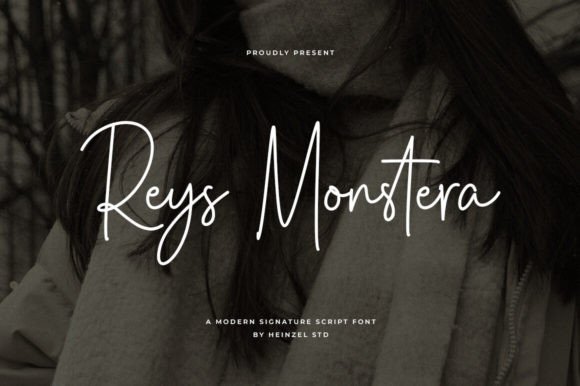
Reys Monstera: Elevating Modern Design with Script Elegance
In the crowded landscape of digital assets, finding a typeface that balances personality with professionalism is a rare discovery. Reys Monstera is a modern signature script font that immediately captures attention with its fluid, elegant touch, offering a solution for designers seeking to inject warmth and authenticity into their visual projects. It stands out as a versatile tool for anyone looking to move beyond rigid geometric fonts and connect with their audience on a more human level.
The Role of Handwritten Aesthetics in Branding
Typography is the voice of a brand, and choosing the right font is critical for establishing a distinct identity. In an era where consumers crave genuine connection, Reys Monstera offers a bridge between luxury and approachability. Its flowing lines mimic the natural imperfections of hand-lettering, which can significantly enhance brand perception. When applied to a logo or brand collateral, it signals creativity and attention to detail without sacrificing legibility.
Unlike rigid serif or sans-serif typefaces, this script font adds an organic layer to visual design. It works exceptionally well for brands that want to appear curated and thoughtful. Whether you are designing for a boutique agency, a lifestyle brand, or a high-end service provider, the font helps establish a visual hierarchy that draws the eye to key messages.
Practical Applications for Creative Professionals
The true value of a creative asset lies in its versatility. Reys Monstera is not limited to a single medium; it adapts seamlessly across various formats, making it a staple in any designer's toolkit. Its elegant aesthetic makes it particularly effective for projects requiring a personal touch.
- Stationery and Print Design: It looks stunning on wedding invitations, thank you cards, and greeting cards, adding a bespoke feel to special occasions.
- Digital Marketing: For social media graphics and digital ads, the font helps create thumb-stopping content. It adds personality to Instagram quotes, headers, and promotional banners.
- Corporate Identity: Use it for business cards, letterheads, and presentation covers to soften corporate communication while maintaining a professional edge.
- Editorial and Packaging: In magazine layouts or product packaging, the script can highlight headlines or callouts, guiding the reader through the content with modern aesthetics.
Integrating Typography with Design Workflow
To maximize the impact of Reys Monstera, it must be used with intention. A common pitfall in graphic design is pairing a script font with another highly decorative typeface, which can clutter the layout. Instead, pair it with a clean, minimalist sans-serif font. This contrast ensures that the headers remain expressive while the body text maintains high readability.
Furthermore, consider the color palette and spacing. Script fonts often require slightly more generous letter-spacing (tracking) to ensure legibility, especially at smaller sizes. When used in web design or UI design, ensure that the background is clean and uncluttered to let the font's elegant curves shine.
Enhancing User Experience Through Typography
Good design is invisible, but great typography is memorable. By incorporating Reys Monstera into your projects, you are doing more than just decorating a page; you are enhancing the user experience. A handwritten element can make a website feel more welcoming or an advertisement feel more personal. It taps into the psychological comfort of human touch in a digital world.
For packaging design, the font suggests craftsmanship. For digital products, it adds a layer of sophistication. It is a strategic asset for marketing materials where the goal is to evoke emotion and drive engagement. When selecting this font, ensure it aligns with your brand’s tone—whether that is romantic, modern, or whimsical.
Ultimately, the tools you choose define the quality of your output. Investing in high-quality creative assets like Reys Monstera streamlines the design workflow, allowing you to produce polished, professional results that resonate with your audience. Thoughtful typography choices are the foundation of effective visual communication, turning simple messages into compelling visual stories.